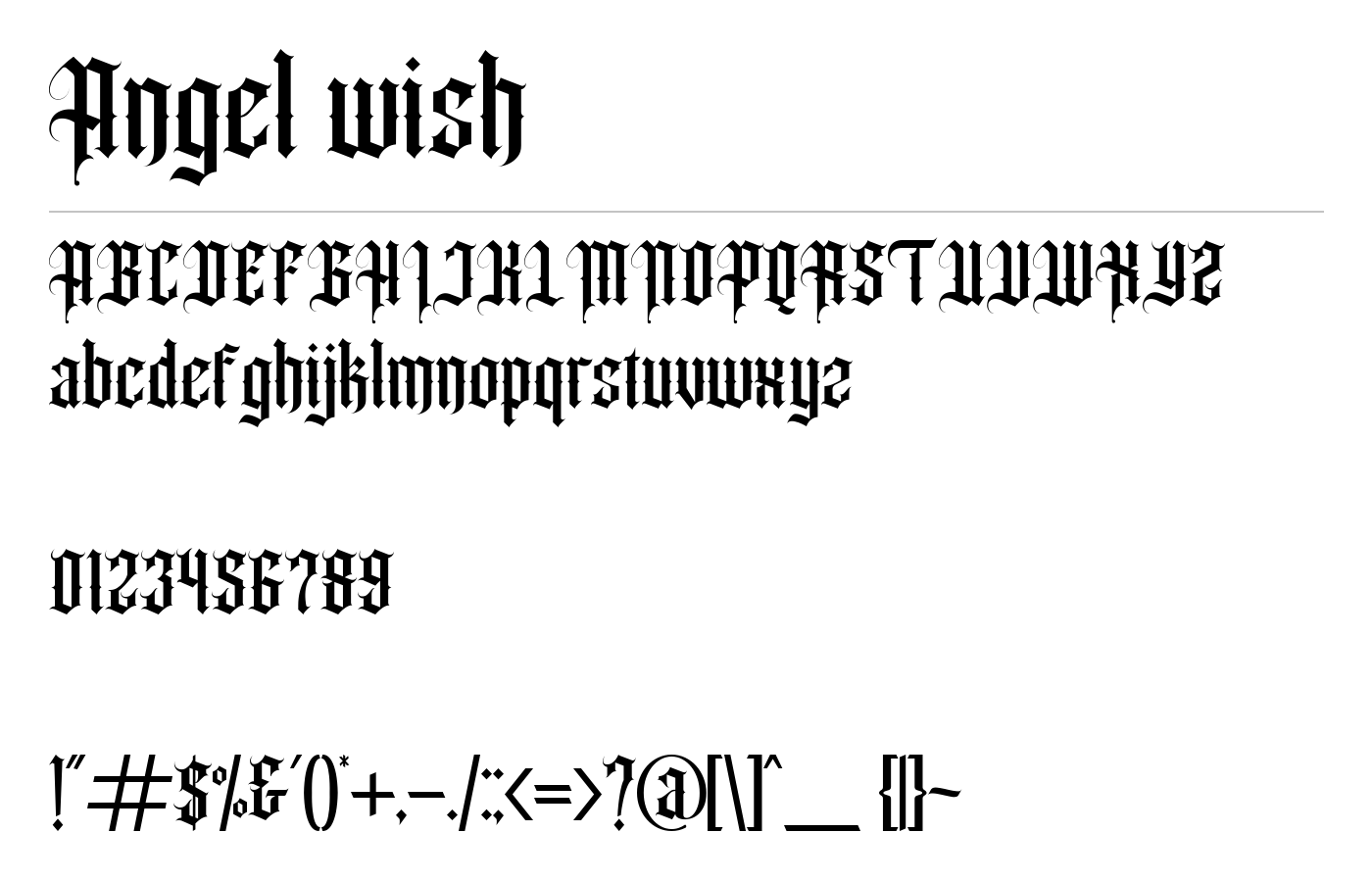
Angel Wish is a bold Blackletter font with sharp, dramatic strokes and intricate details that give it a gothic and vintage feel. Its condensed, high-contrast letterforms with pointed serifs and ornate flourishes make it perfect for creating striking headlines, logos, and designs that need an old-world, medieval-inspired style. This font works best in display settings where its unique character and strong personality can stand out.
Angel wish Font
About Angel wish Font